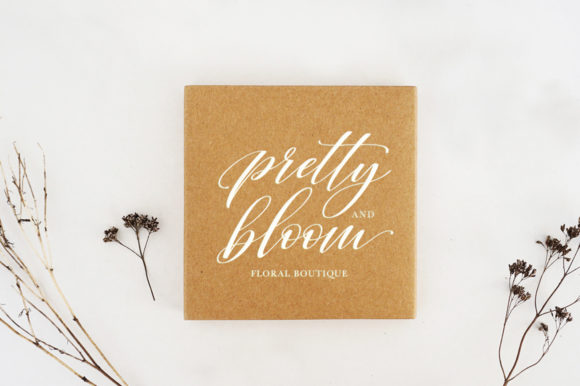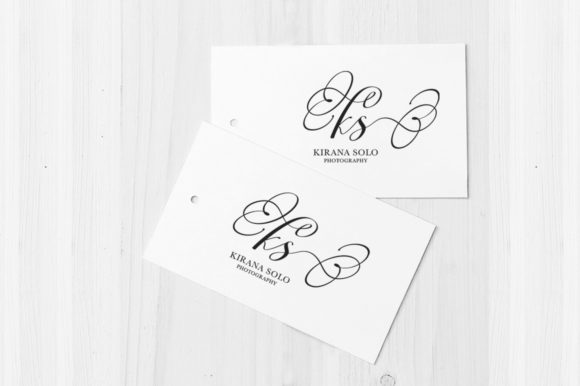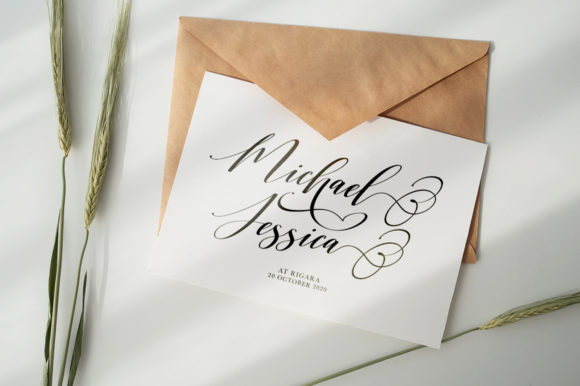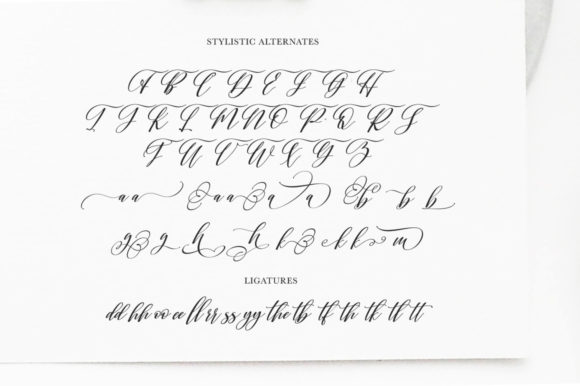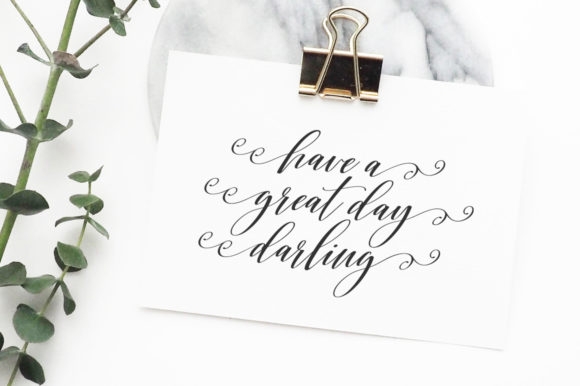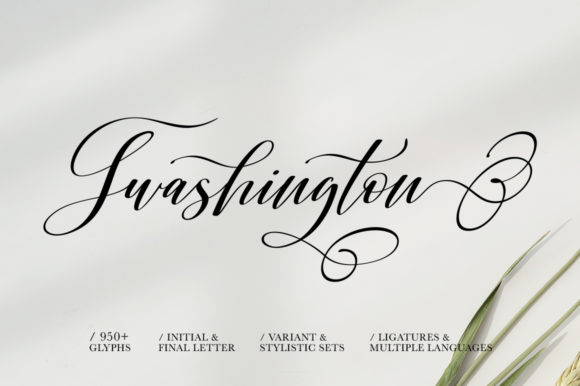
Introduction to Shington Script Font
Have you ever been working on a creative project and suddenly, the right font appears out of nowhere, taking your design to the next level? That’s exactly what happened to many designers when they discovered the Shington Script Font. This sweet and cool handwritten font has a unique style that can add a personal touch to any project.
Whether you’re working on a digital design, a social media campaign, or a branding project, the Shington Script Font is a valuable resource that can help you stand out from the crowd. With its high quality and versatility, this font is perfect for designers who want to add a creative twist to their designs. Plus, it’s available for free download, making it an accessible design resource for anyone.
Key Features of Shington Script Font
• Unique, cursive script design ideal for creative projects, such as wedding invitations, quotes, and more.
• Includes a comprehensive character set, including uppercase and lowercase letters, numbers, and punctuation marks.
Honest Review: Shington Script Font
I recently had the chance to work with the Shington Script Font, and I’m excited to share my thoughts on this beautiful design resource. The font itself is a high-quality, elegant script that’s perfect for adding a touch of sophistication to any creative project.
• ✨ High-quality design: The Shington Script Font is expertly crafted, with smooth lines and precise letterforms.
• ✨ Versatile: This font is suitable for a wide range of applications, from wedding invitations to fashion branding.
Overall, I’m really impressed with the Shington Script Font. It’s a beautiful, high-quality design resource that’s perfect for adding a touch of elegance to any creative project. While it may have some limitations, it’s a great addition to any design collection, and the free download option makes it an excellent value.
Common Use Cases for Shington Script Font
Shington Script Font is a versatile design resource that can be used in a variety of creative projects, including invitations, social media graphics, and branding materials. Its elegant and sophisticated look makes it perfect for weddings, baby showers, and other special events.